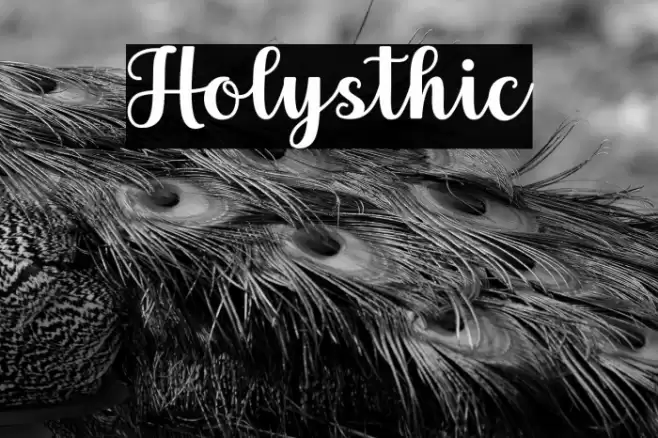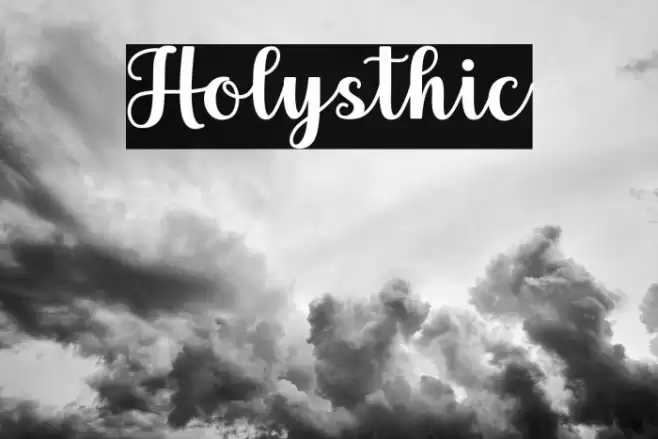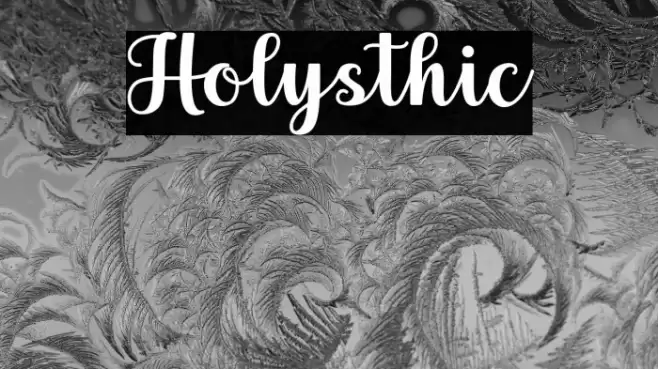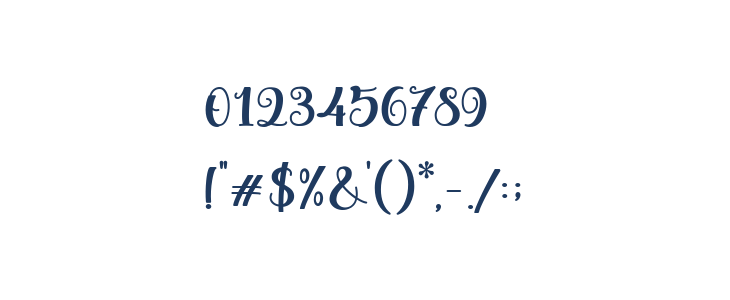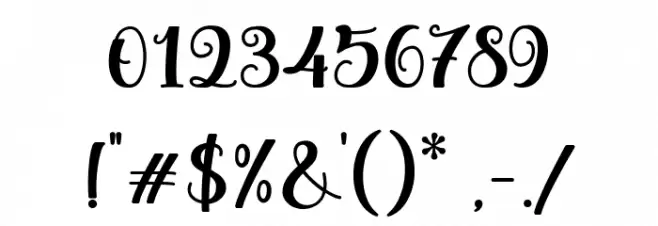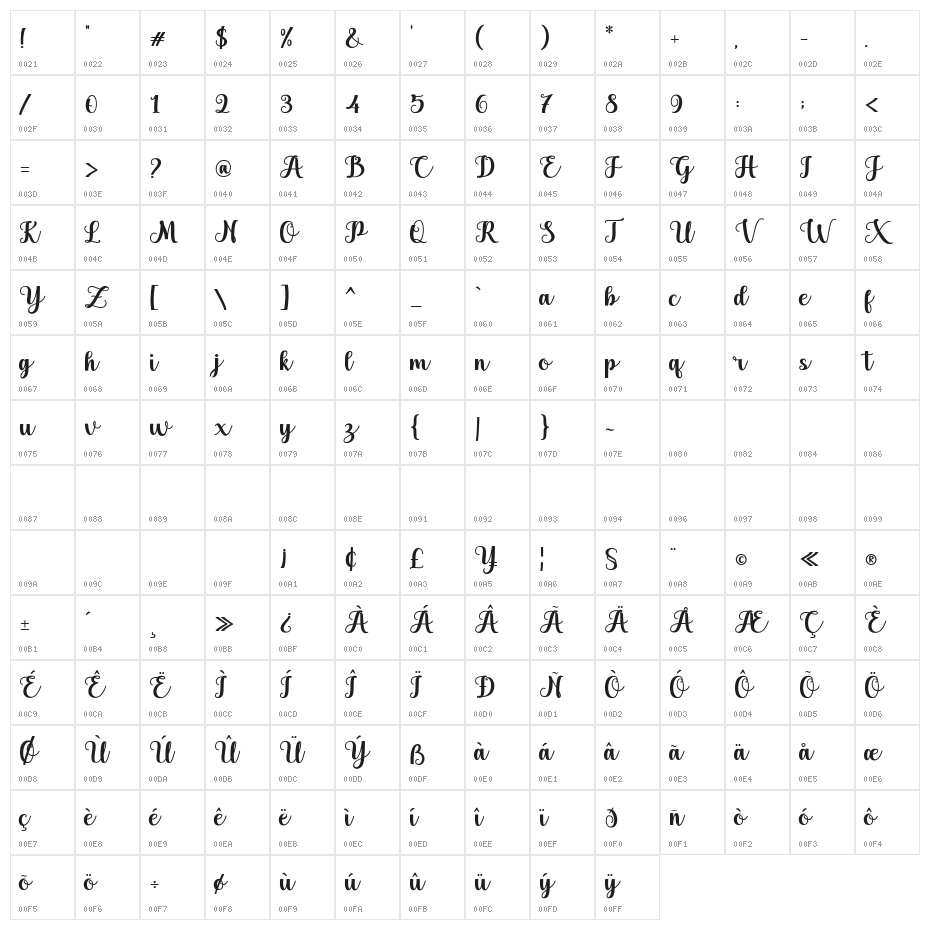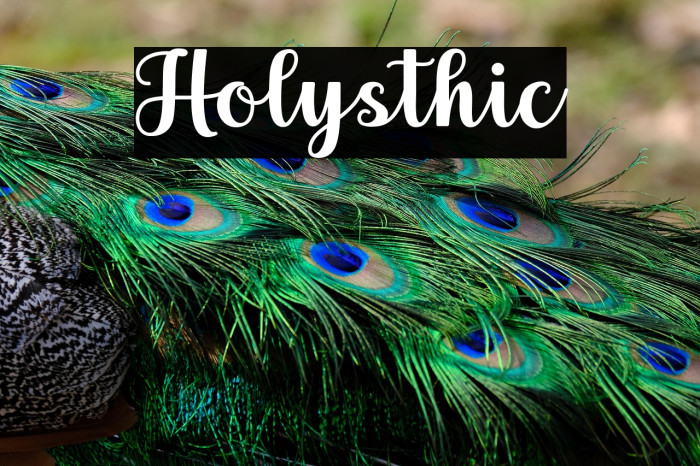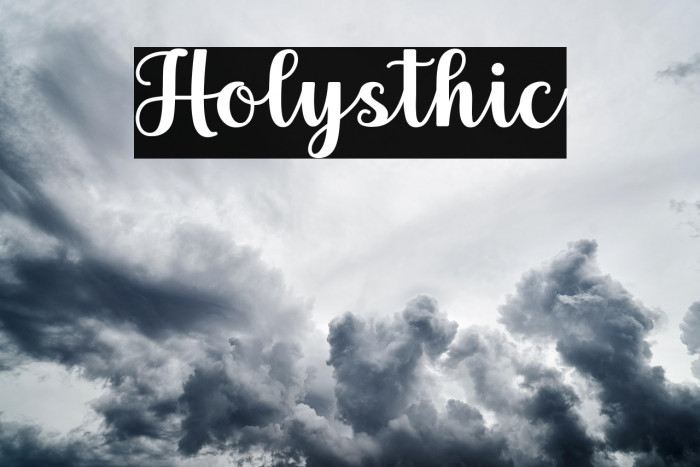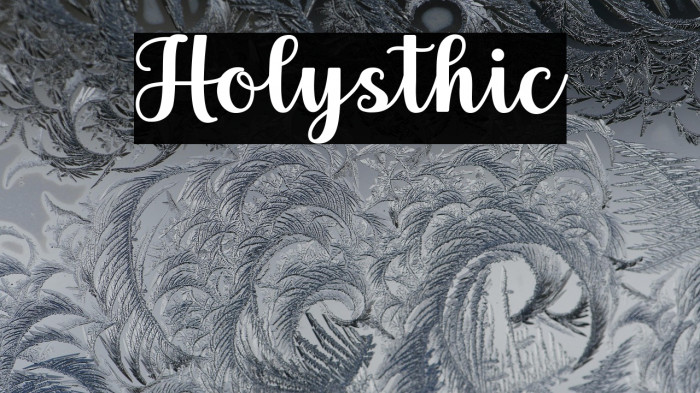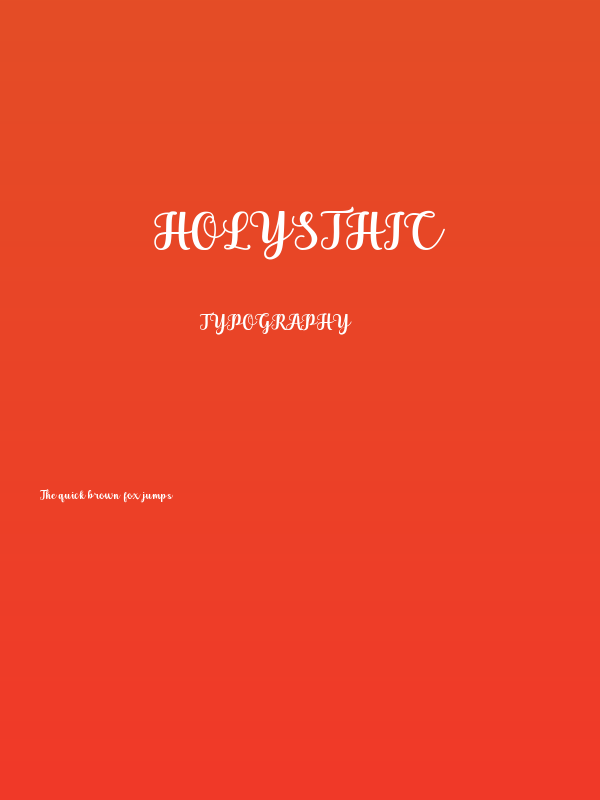
Holysthic Font
Holysthic Description
This font features a flowing, elegant script style with a modern twist. The uppercase letters are characterized by their elaborate loops and swirls, giving them a sophisticated and decorative appearance. The lowercase letters maintain a consistent flow, with smooth, rounded edges and a slightly playful touch. The numerals are well-integrated into the script style, maintaining the same level of elegance and readability. Special characters are designed to complement the overall aesthetic, ensuring a cohesive look across all text elements. The font's overall style is both classic and contemporary, making it versatile for various design applications.
A modern, elegant script font with decorative loops and smooth flow from Regular fonts.
- Proposed Projects: Ideal for wedding invitations, branding, greeting cards, and elegant packaging designs.
- Overall Style: Modern, Decorative
- Use Case: Logos, Invitations, Decorative text